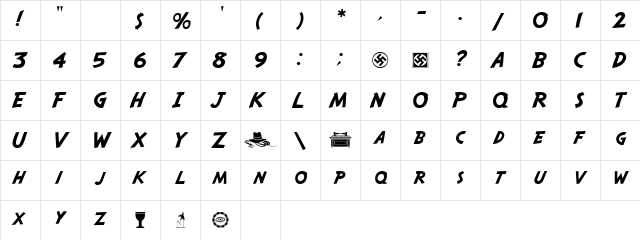
SafariRegular Regular
Design Context for SafariRegular Typeface
SafariRegular is a composed and adaptable typeface that performs quietly and consistently across a wide range of design contexts.